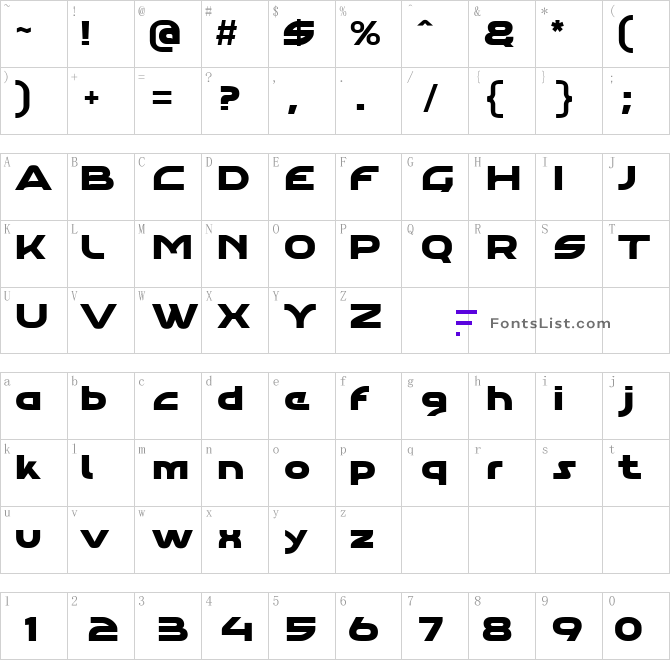
- Font Name:Aghara Pro
- Full Name:Aghara Pro Regular
Aghara-Pro-Regular.ttf is a very beautiful artistic font, Aghara-Pro-Regular.ttf is widely used in the design and printing of various books and pictures,Aghara-Pro-Regular.ttf has a strong visual impact,Aghara-Pro-Regular.ttf is a commonly used font in newspapers, magazines and books, and is used in posters, e-commerce Poster design, store design, logo design, font design and other fields.Aghara-Pro-Regular.